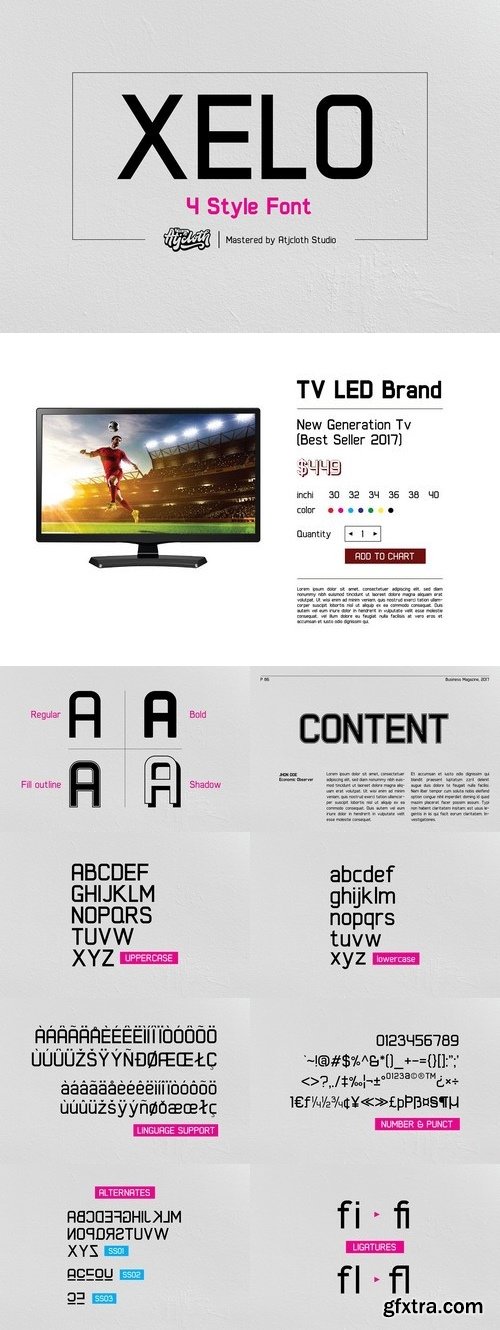
CM - Xelo - 4 Style Font 1406388
Xelo is a gorgeous sans serif font that will easily become a modern and classic typeface in your design. It featured to help you to uses for labeling, logo, clothing, movie title, flyer title, gigs or album cover.